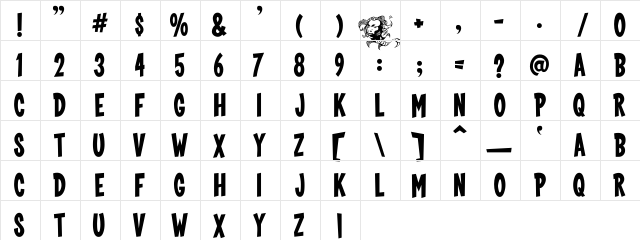
Screebie Regular
Design Context for Screebie Typeface
Screebie is a composed and adaptable typeface that performs quietly and consistently across a wide range of design contexts.